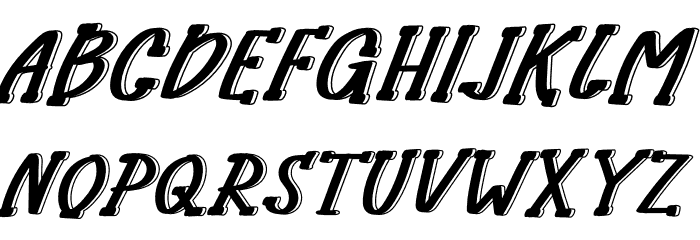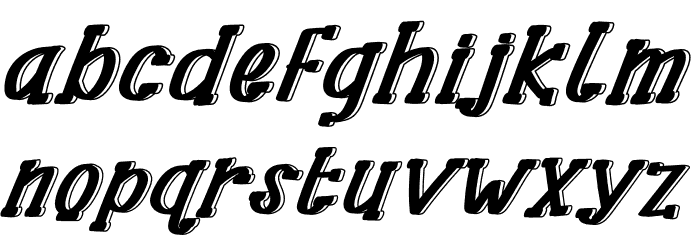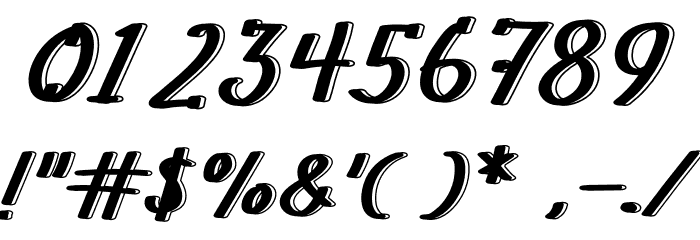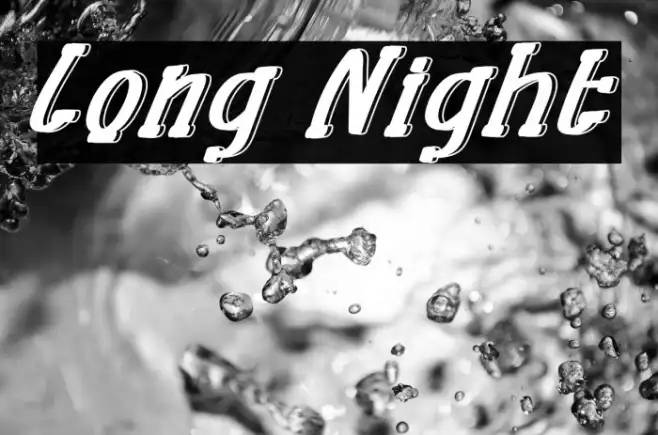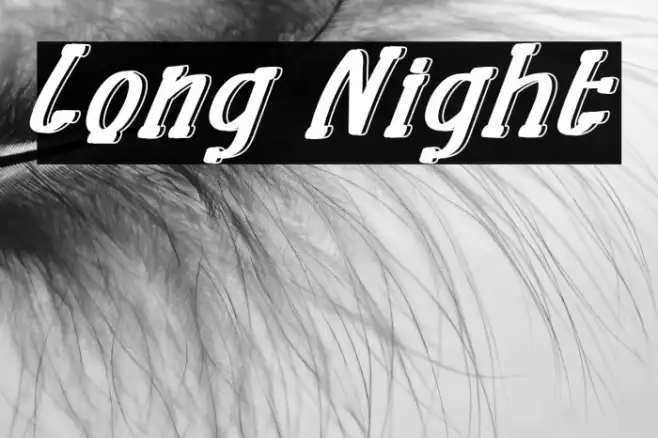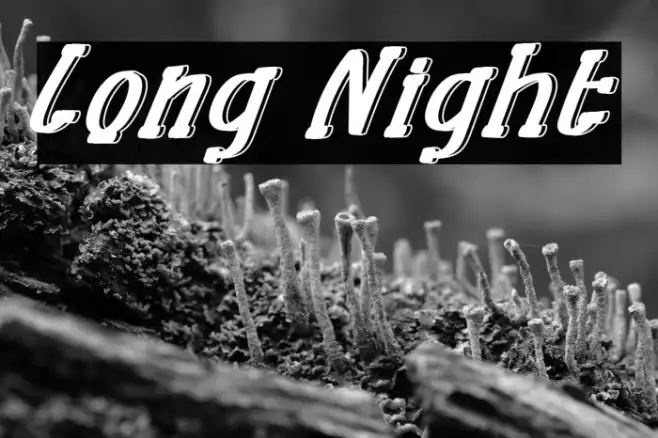
Long Night Font
This font features a bold and dynamic style with a strong shadow effect that gives it a three-dimensional appearance. The characters are slightly slanted, adding a sense of motion and energy. The strokes are thick and consistent, providing a robust and impactful look. The uppercase and lowercase letters maintain a cohesive design, with rounded edges and smooth curves. The numerals and special characters follow the same stylistic approach, ensuring uniformity across all glyphs. This font's unique shadowing and boldness make it stand out, perfect for eye-catching designs.
A bold, shadowed font with a dynamic, three-dimensional look.
- Proposed Projects: Ideal for posters, headlines, logos, and any design requiring a bold statement.